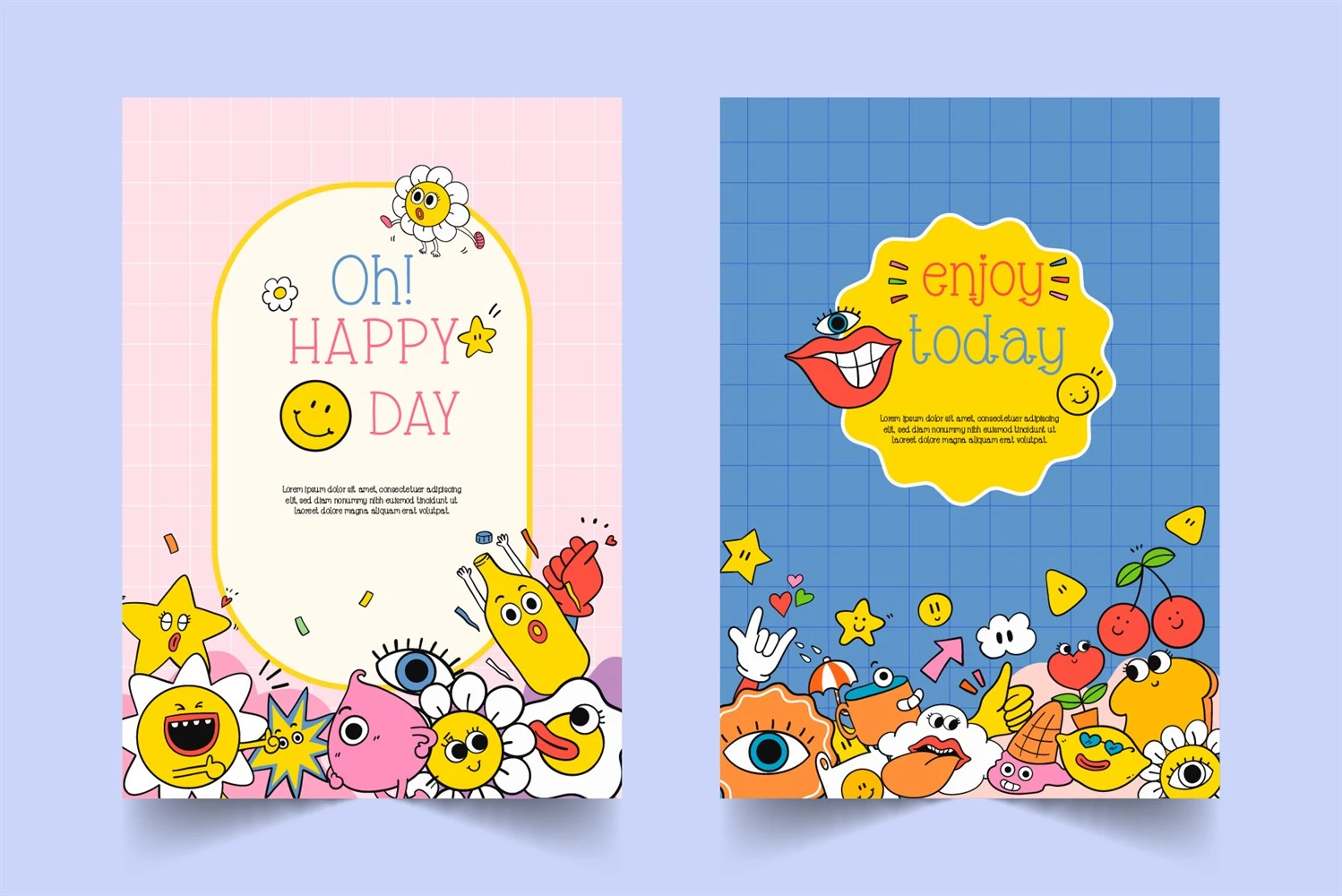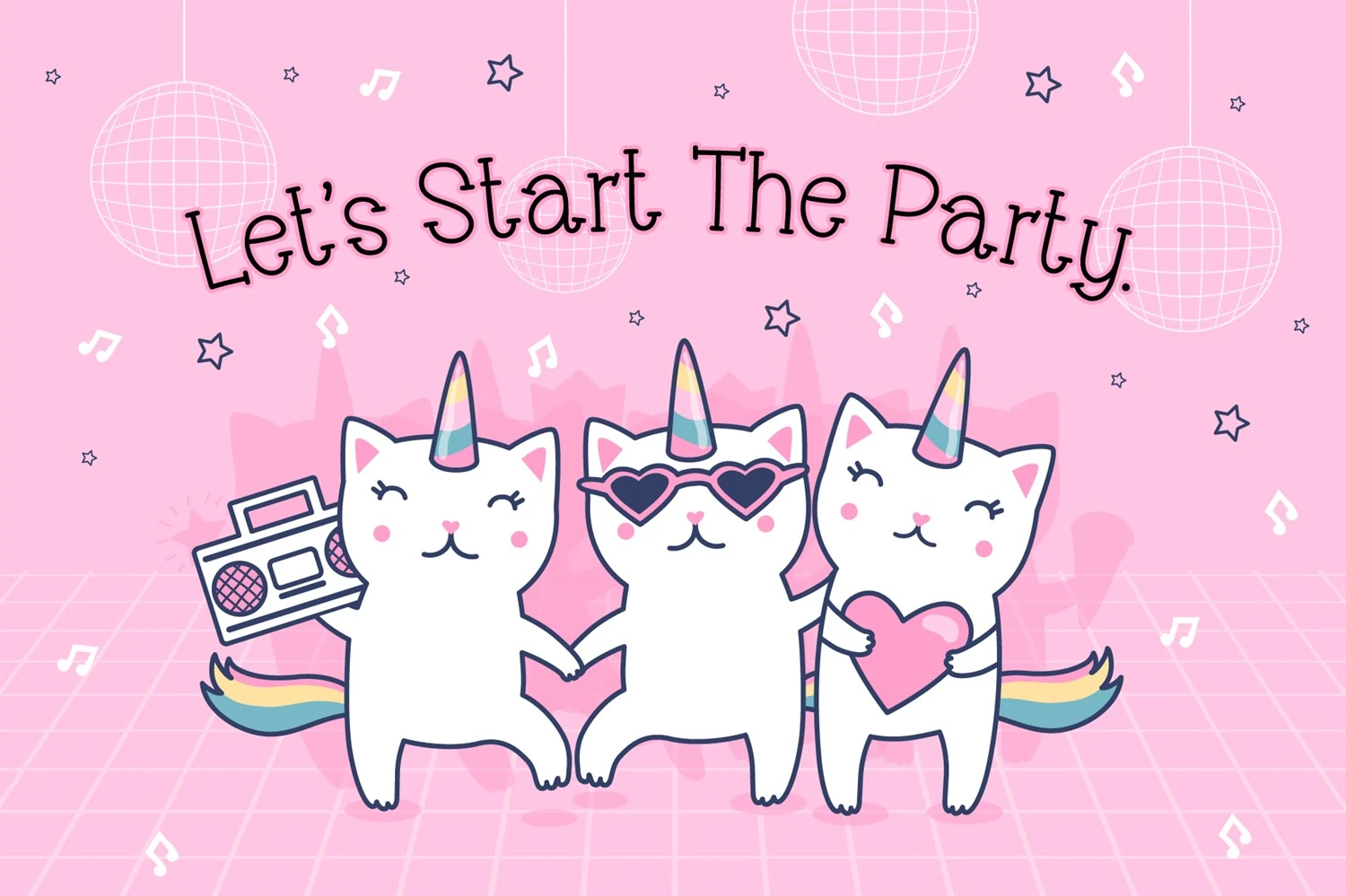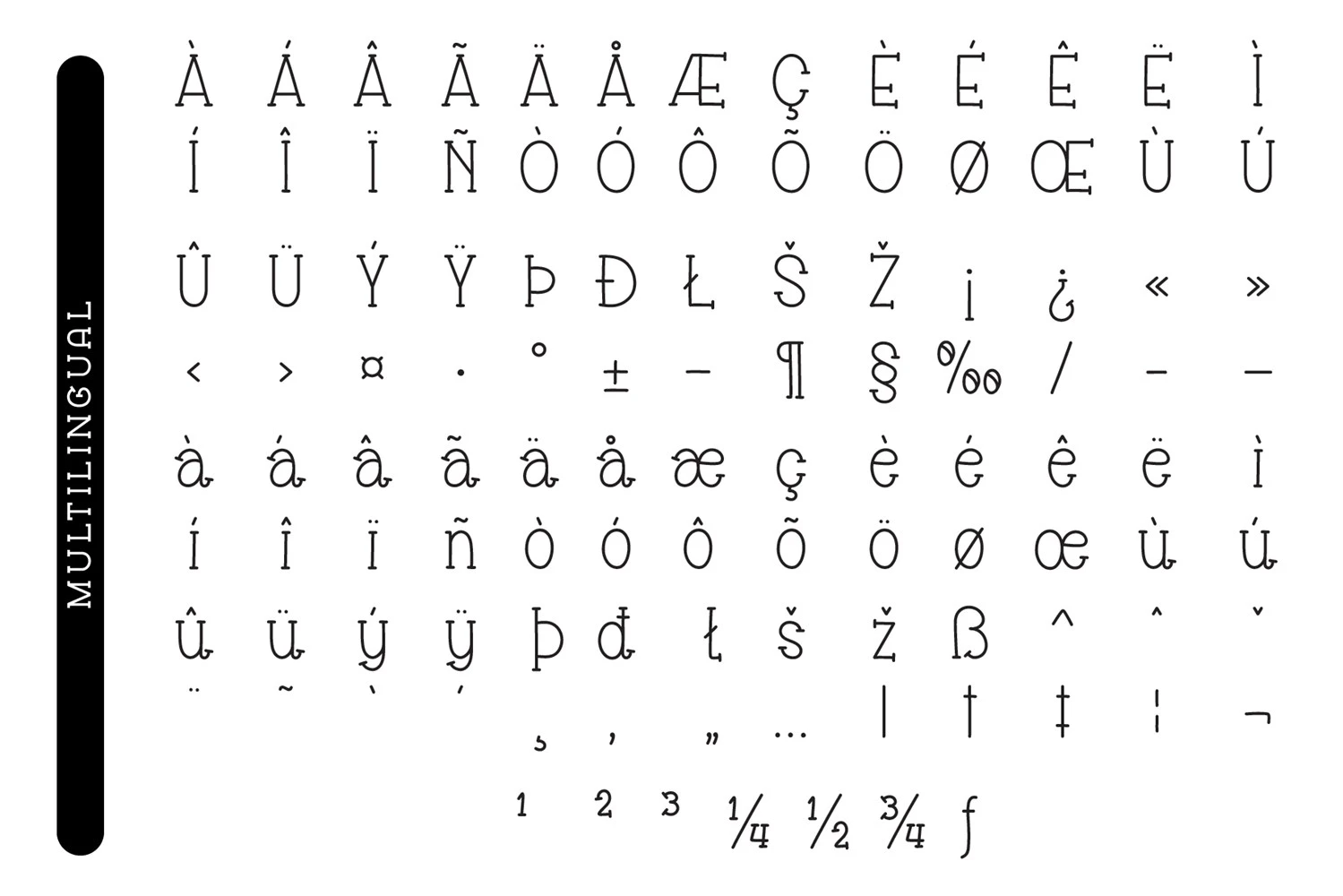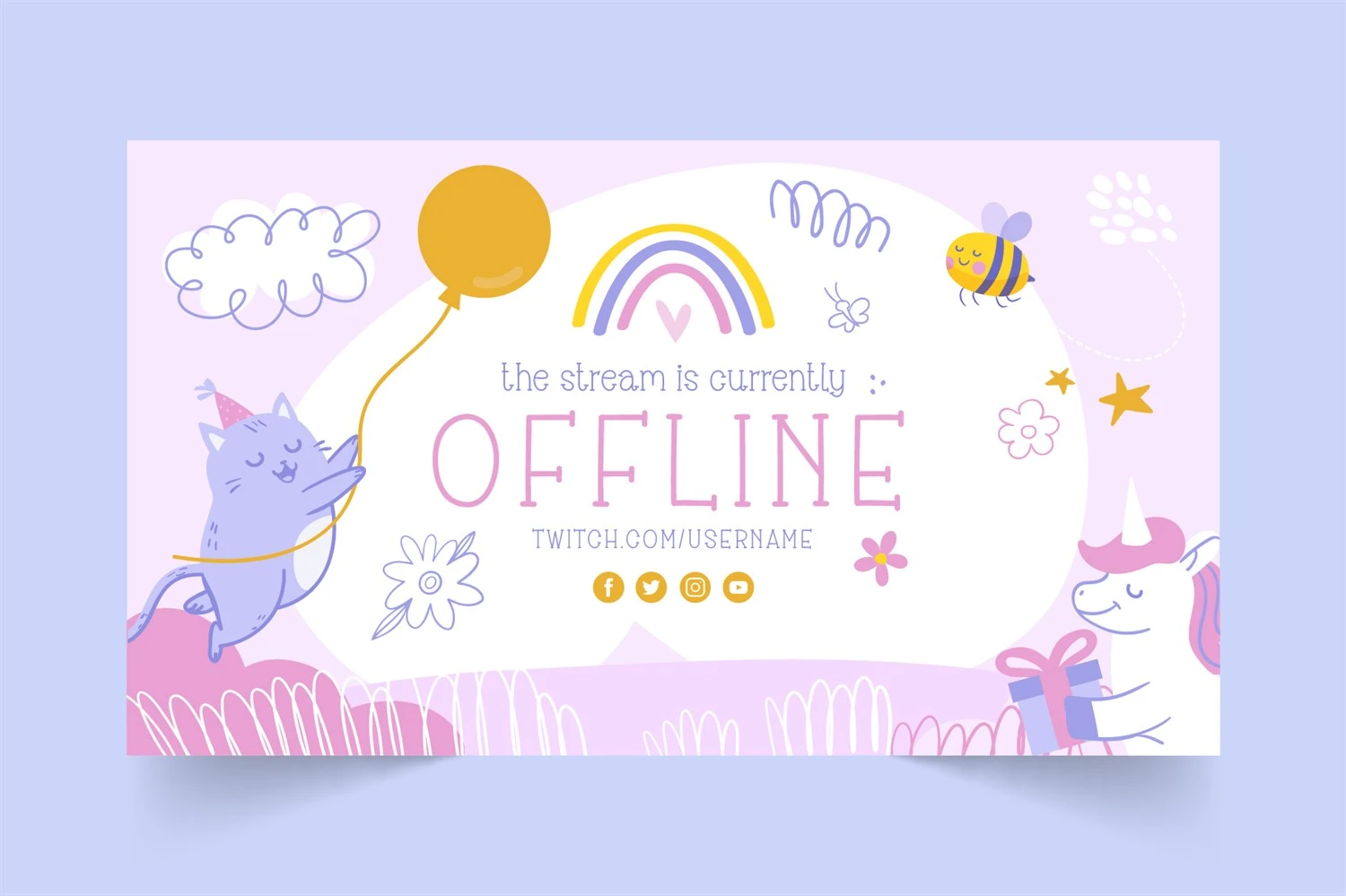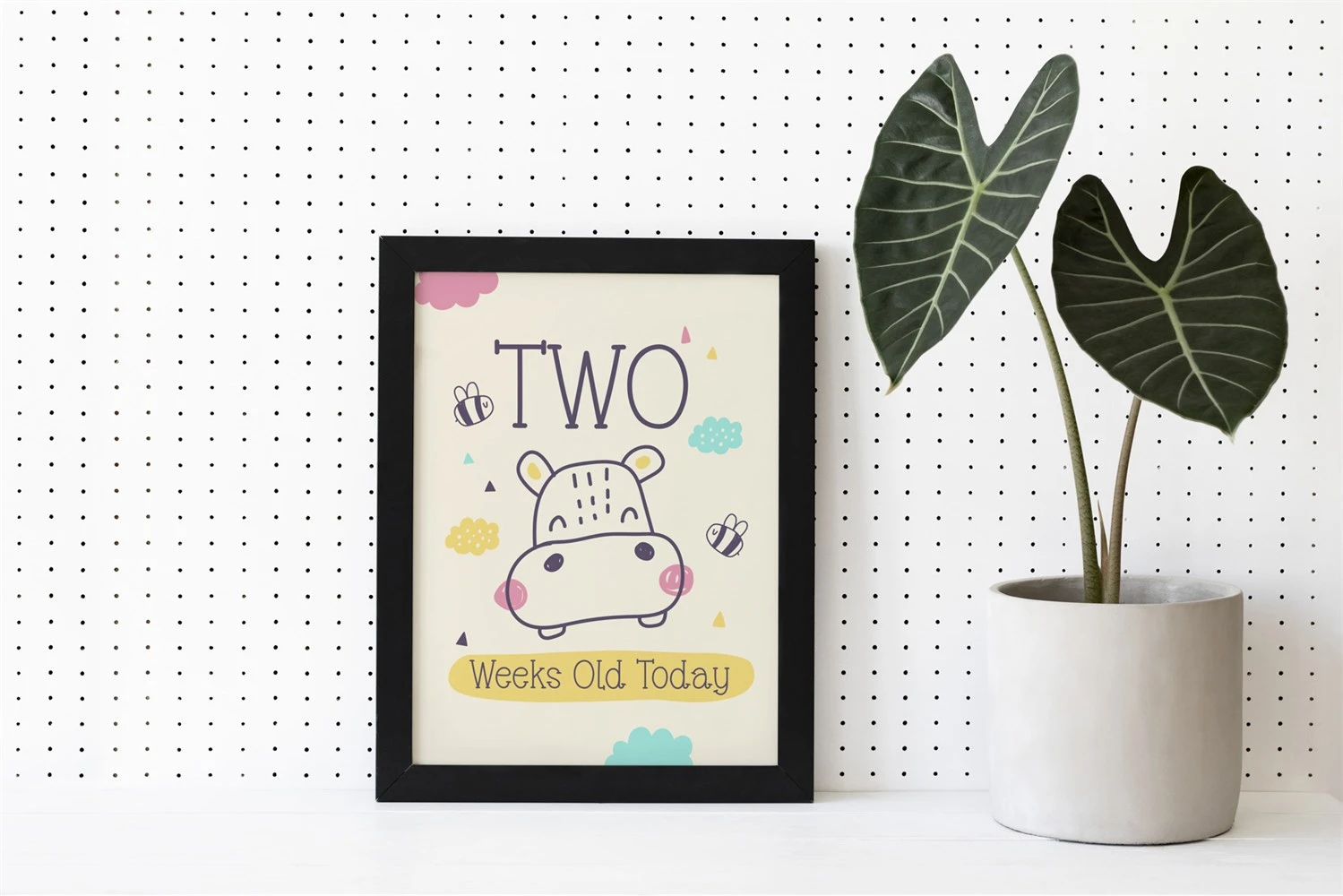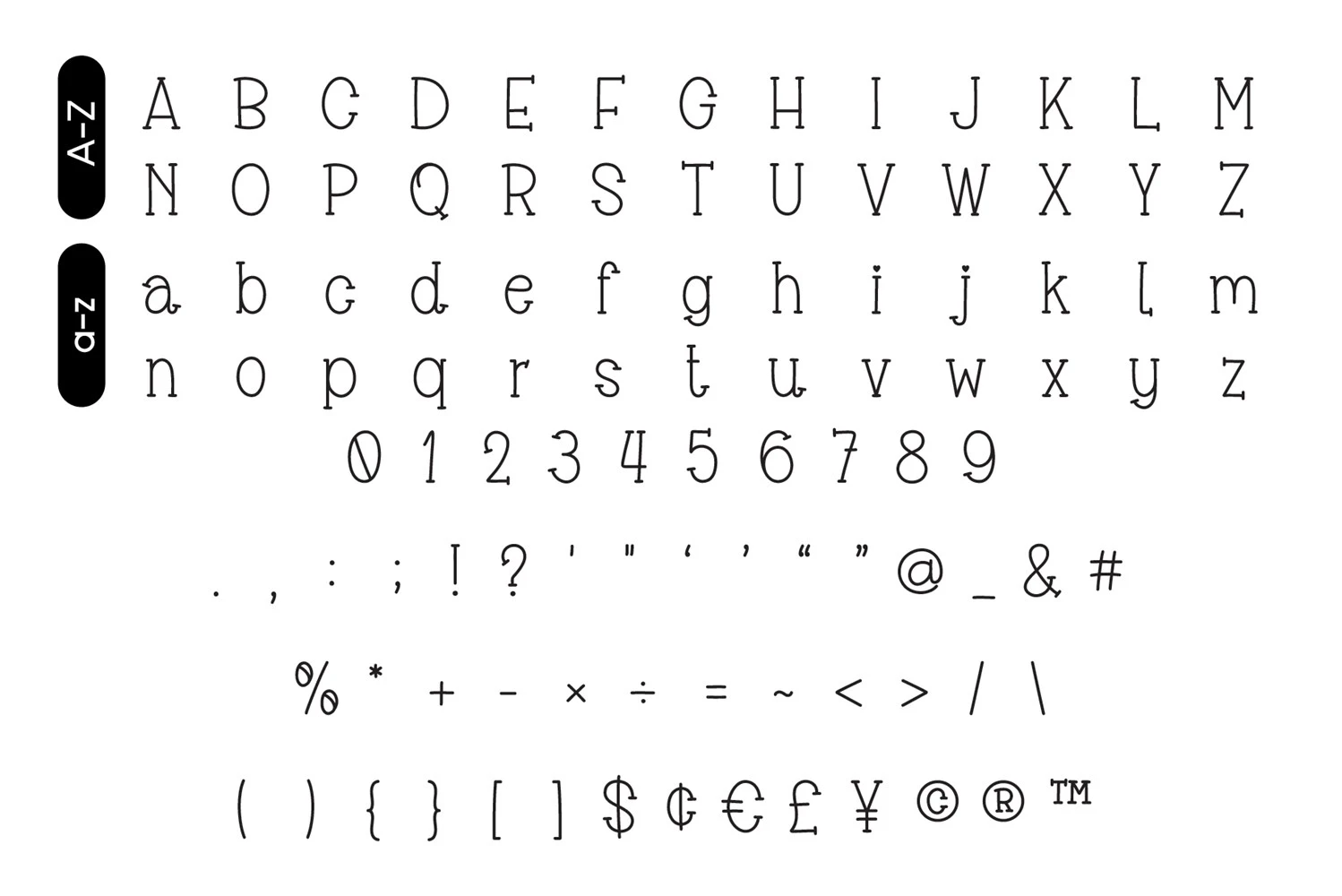
Fox Bestie Font is a cute style, bright, fun, and easy to read, handwritten slab serif font that features a charming combination of cute, fun, and cool elements. This font is perfect for various creative projects such as quotes, headings, blogs, logos, invitations, and more!